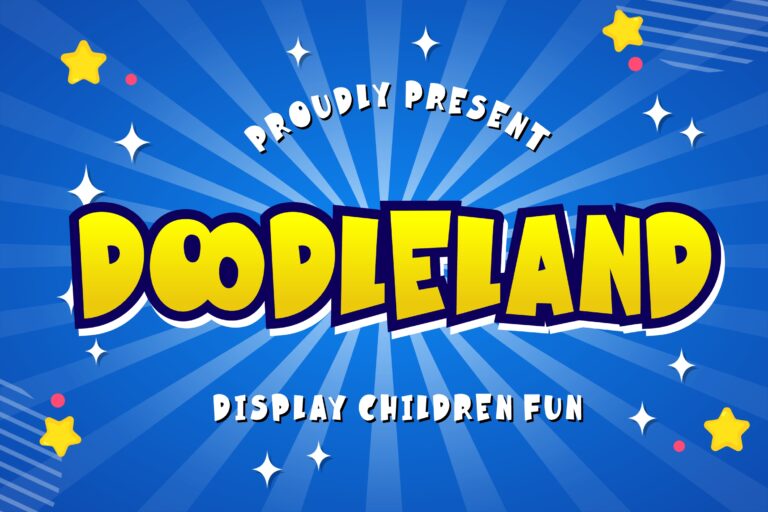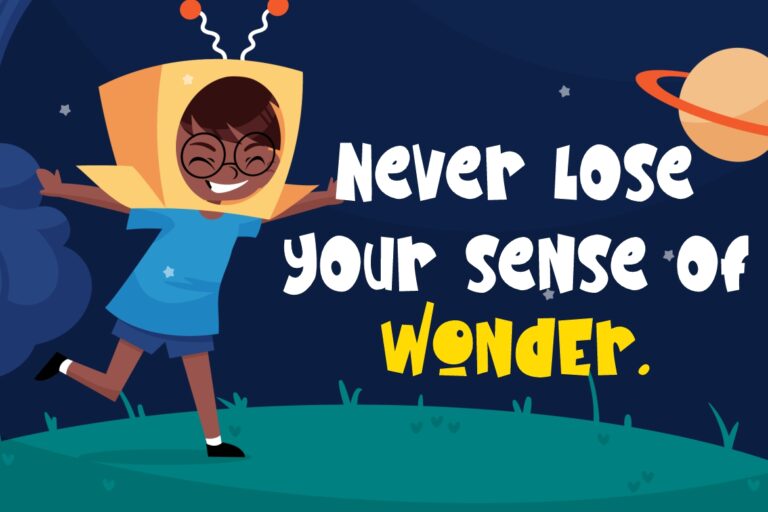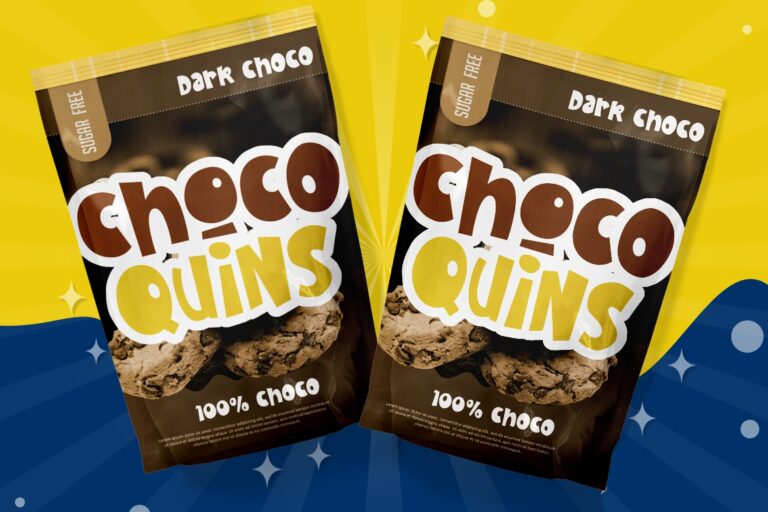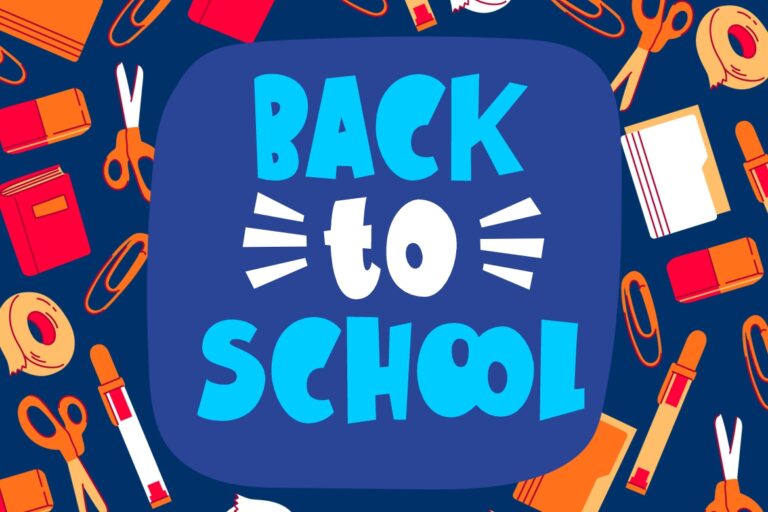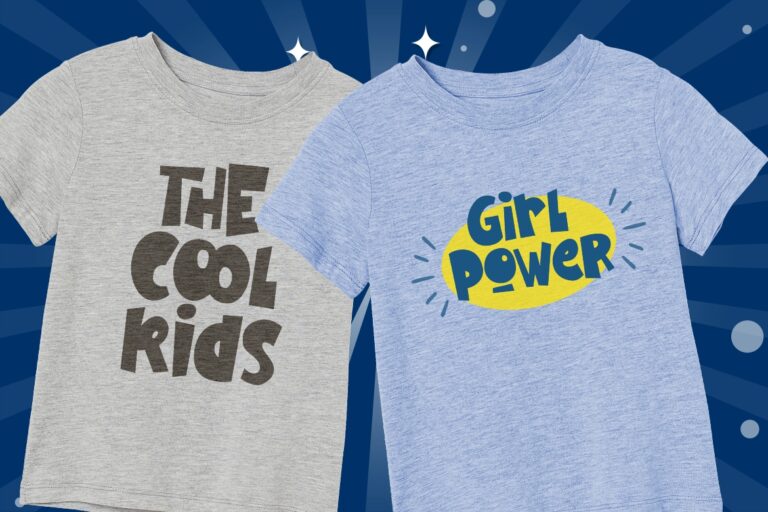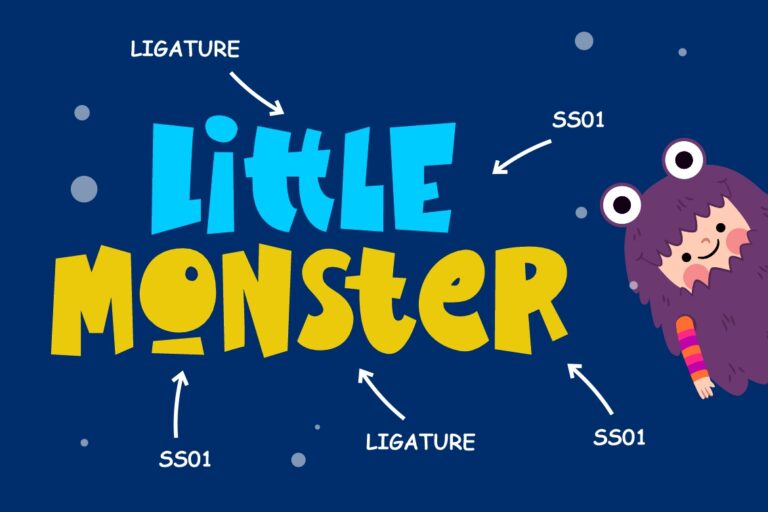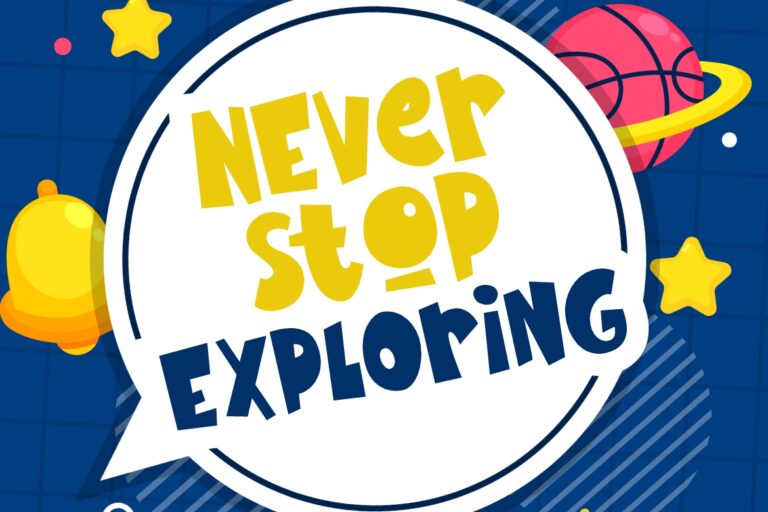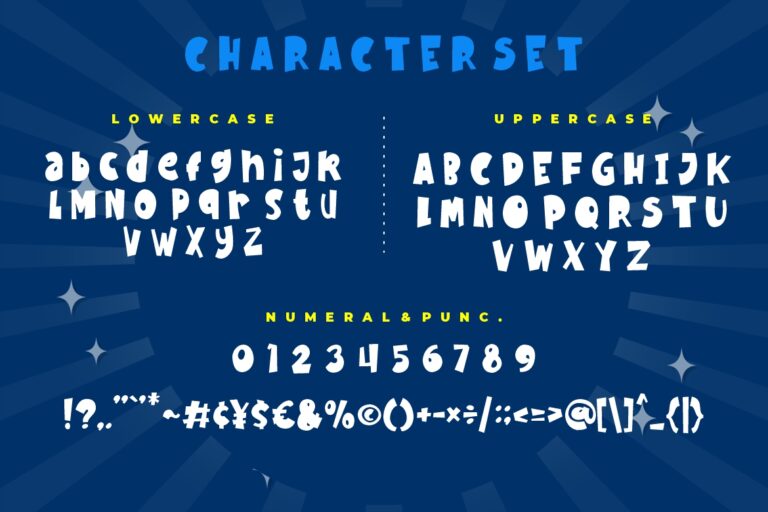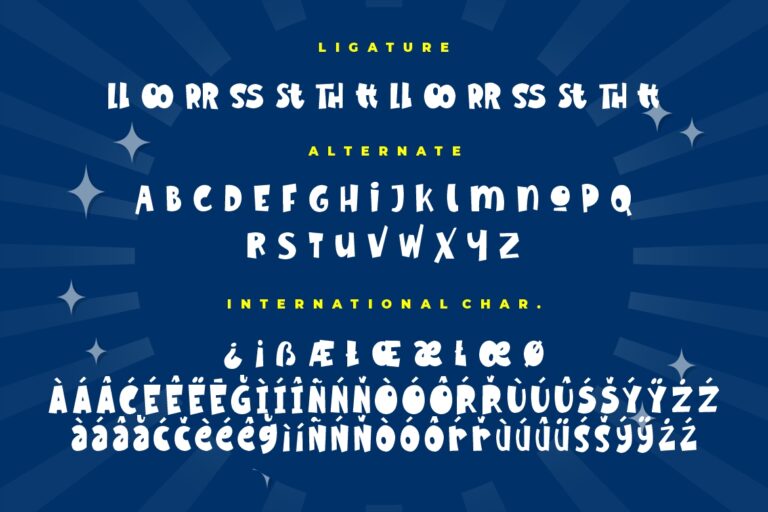
Doodleland Display Fun Children
Doodleland is dispaly fun font which perfect for kindergarten occasion and children event.
Doodleland is perfect for branding projects, logo, wedding designs, social media posts, advertisements, product packaging, product designs, label, photography, watermark, invitation, stationery and any projects that need handwriting taste.